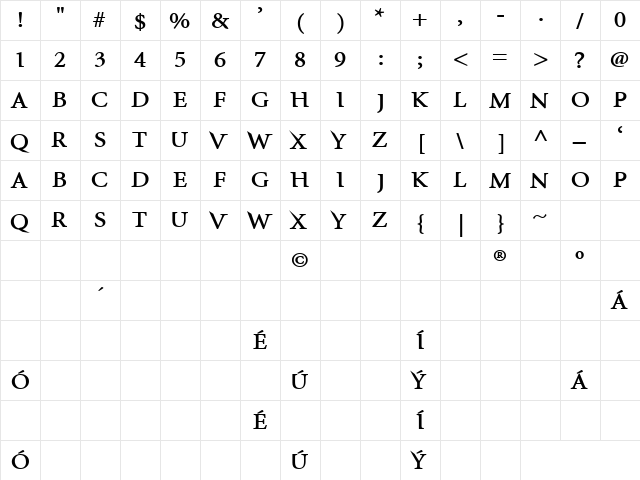
InfraRed ExtraBold
| Designer | Zdenek Gromnica aka FutureMillennium |
Design Context for InfraRed Typeface
InfraRed takes a measured approach to typography — its balanced proportions and neutral character make it a reliable workhorse for both digital and print work. The heavy weight commands attention and anchors typographic hierarchies.